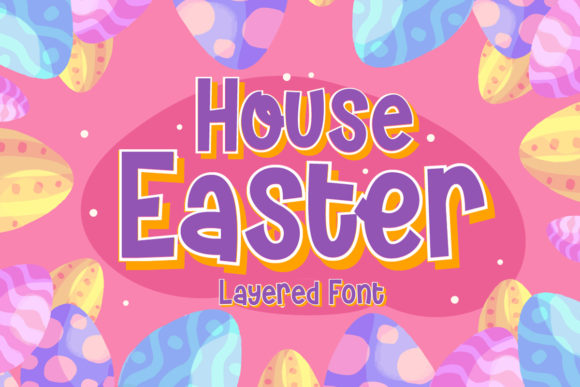
Journey into a whimsical world of creativity with House Easter, a captivating display font that dances across the digital canvas. Inspired by the joyous spirit of Easter, this font carries the playful energy of a child's laughter and the warmth of a family gathering. Its chunky letters, reminiscent of colorful Easter eggs, exude a sense of fun and excitement, making it the perfect choice for any project that seeks to capture the magic of childhood.
As an enchanting display font, House Easter possesses a unique charm that elevates your designs to new heights. Its bold, eye-catching characters demand attention, making them ideal for headings, posters, social media graphics, and any other design element that demands impact. Let House Easter transform your words into captivating visual masterpieces that resonate with your audience.
But House Easter is more than just a pretty face. It's a versatile font that effortlessly adapts to a wide range of design styles. Its playful nature lends itself perfectly to children's books, invitations, and playful branding. Need a font that exudes warmth and coziness? House Easter delivers with its inviting letterforms that create a sense of comfort and familiarity. Looking for a font that adds a touch of whimsy to your designs? House Easter's playful spirit will bring a smile to your audience's faces.
With House Easter at your fingertips, you unlock a world of creative possibilities. Unleash your imagination and let this font take you on a journey of visual delight. Whether you're designing for a school project, creating eye-catching social media posts, or crafting a memorable logo, House Easter is your perfect companion. Join the creative revolution and embrace the magic of House Easter today.